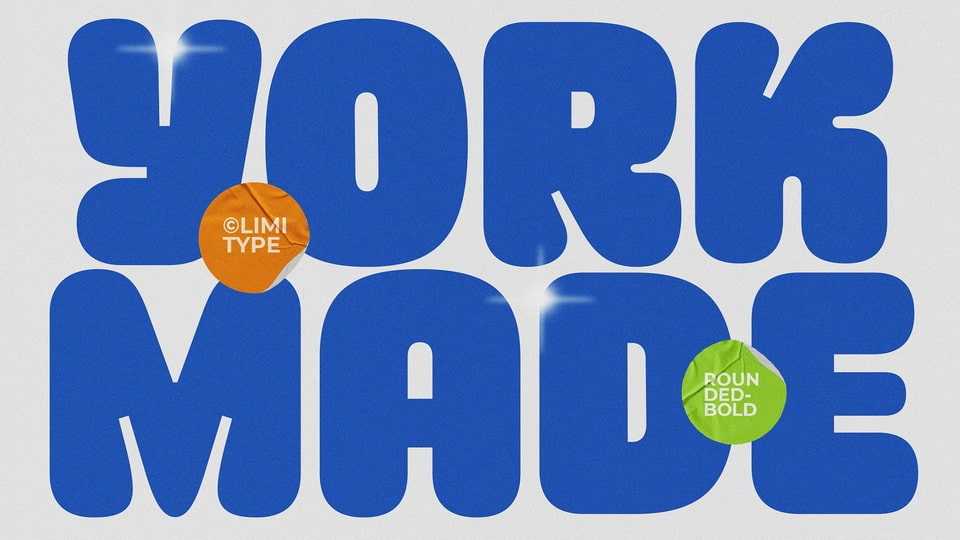
Download Yorkmade font, a bold display typeface made in a rounded style with a fun and playful impression. With inktrap in upper and lower case adding uniqueness to this font.